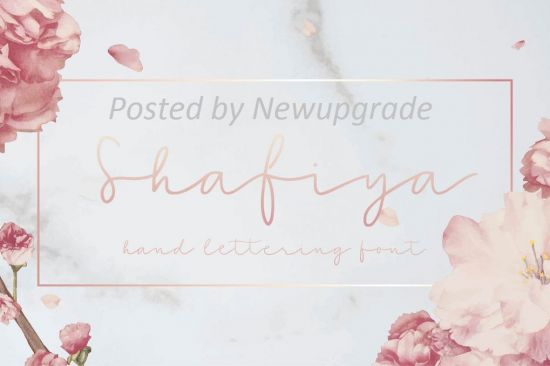
Shafiya is a handwritten font. Work great for any design needs: logo, branding, modern advertising design, logos, poster quote, book/cover Title, editorial design, website/blog, card, custom mug, pillow, t-shirts, and any hand-lettered needs.
Shafiya (.ttf + .otf + webfont) comes with upper and lowercase Standard Characters, Punctuation, and Numerals.